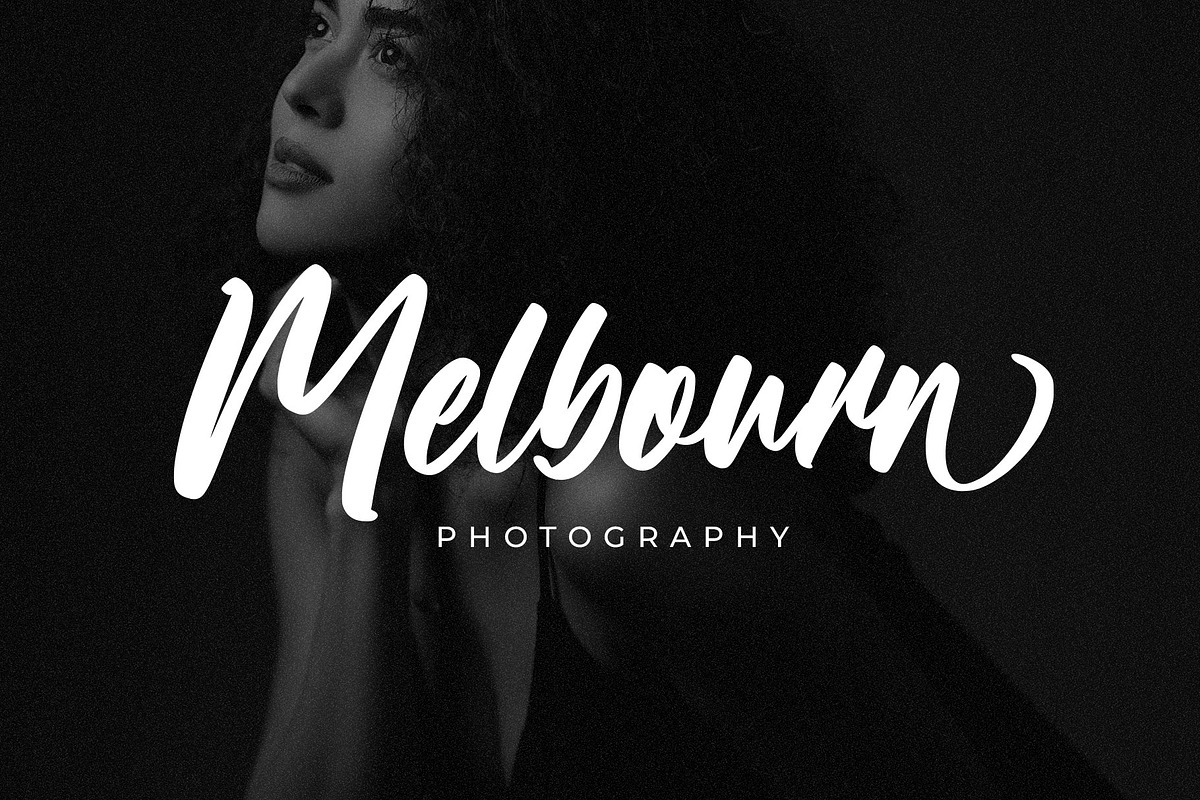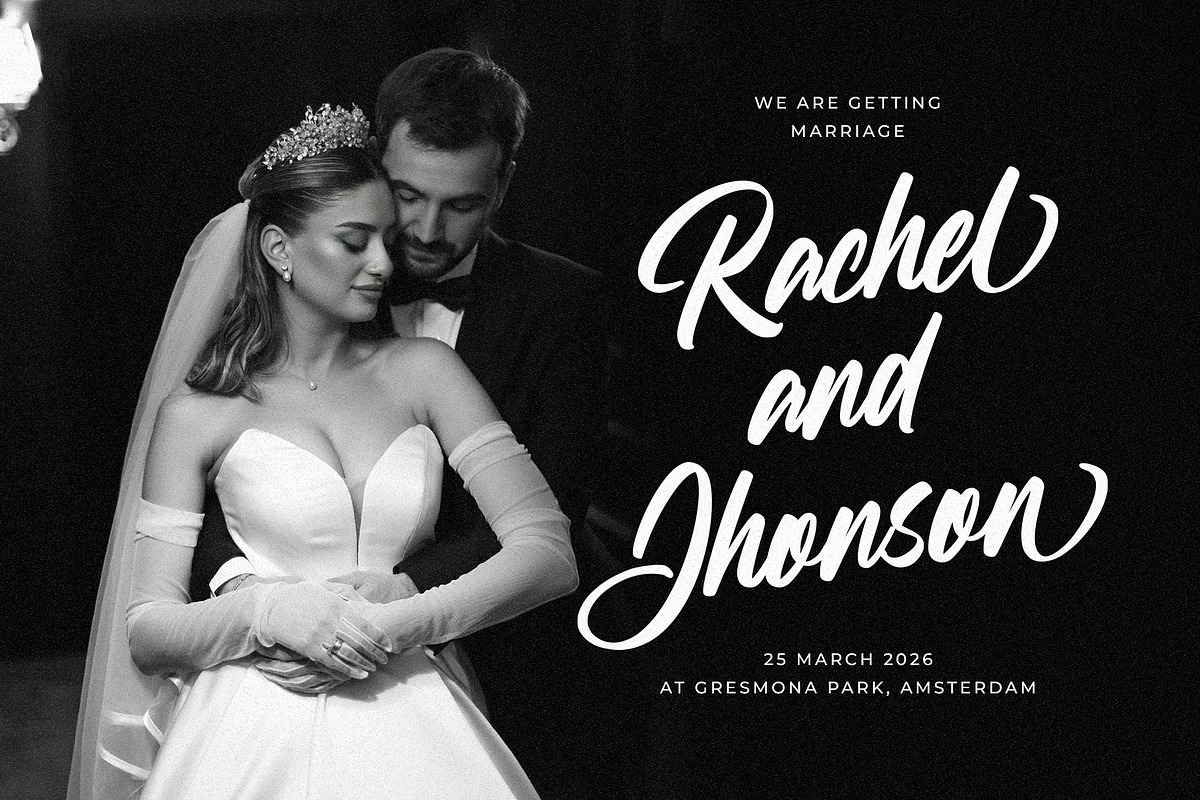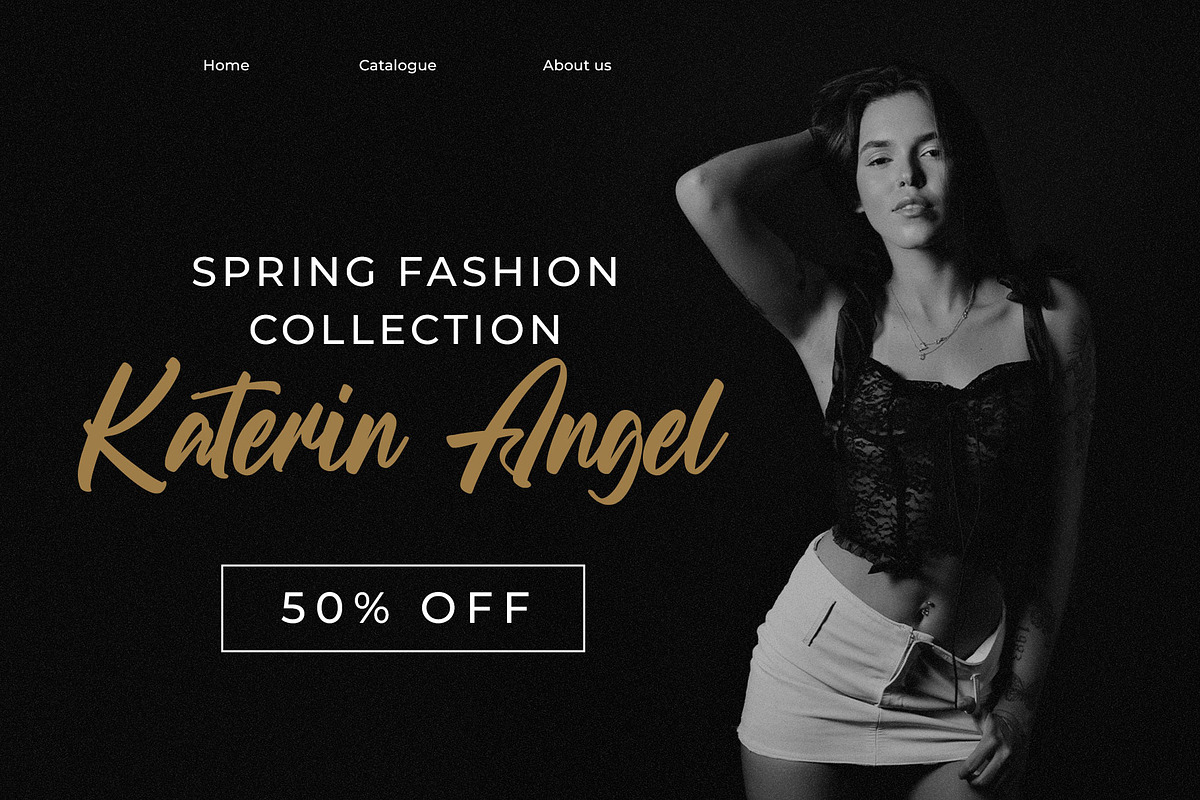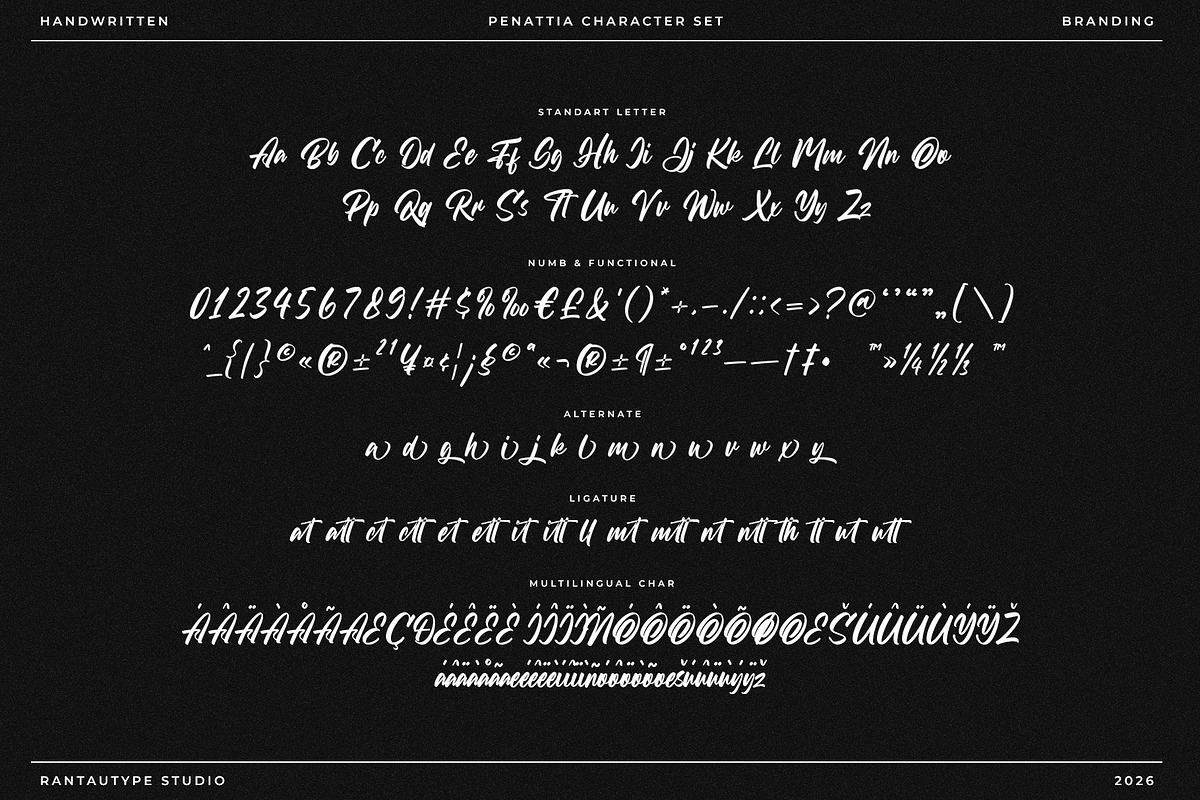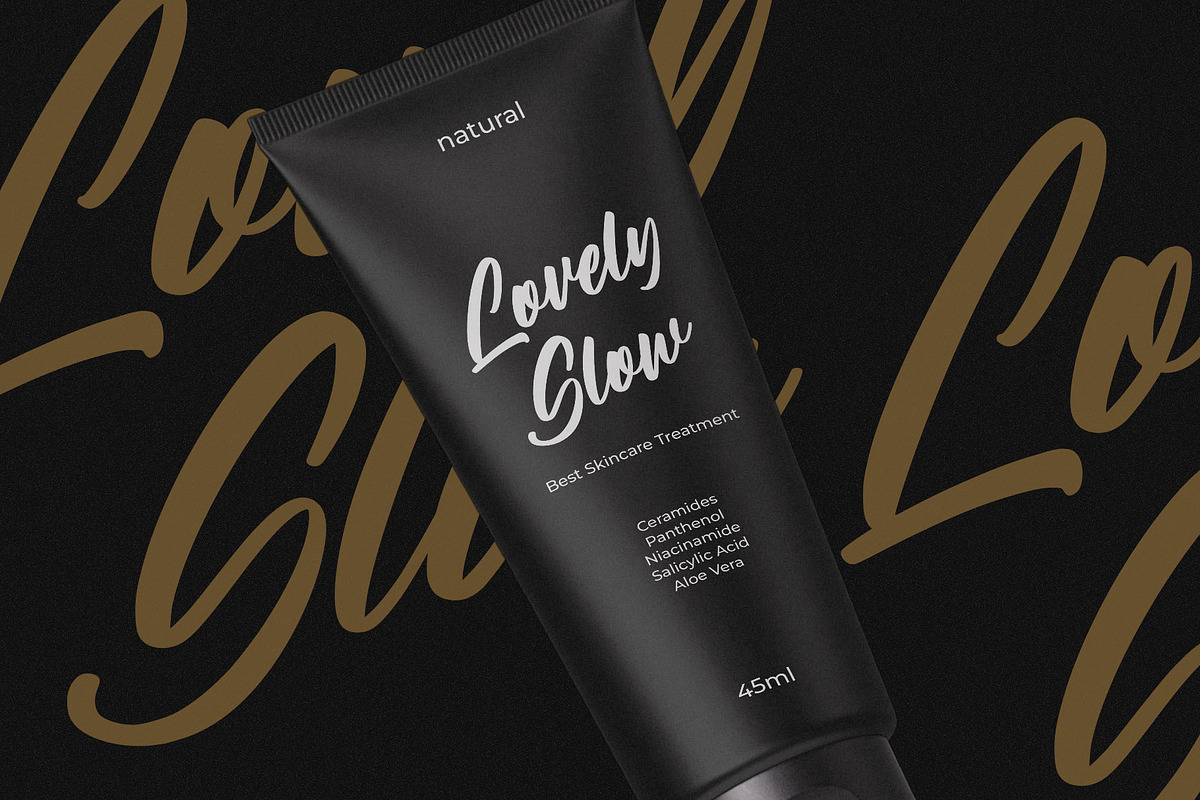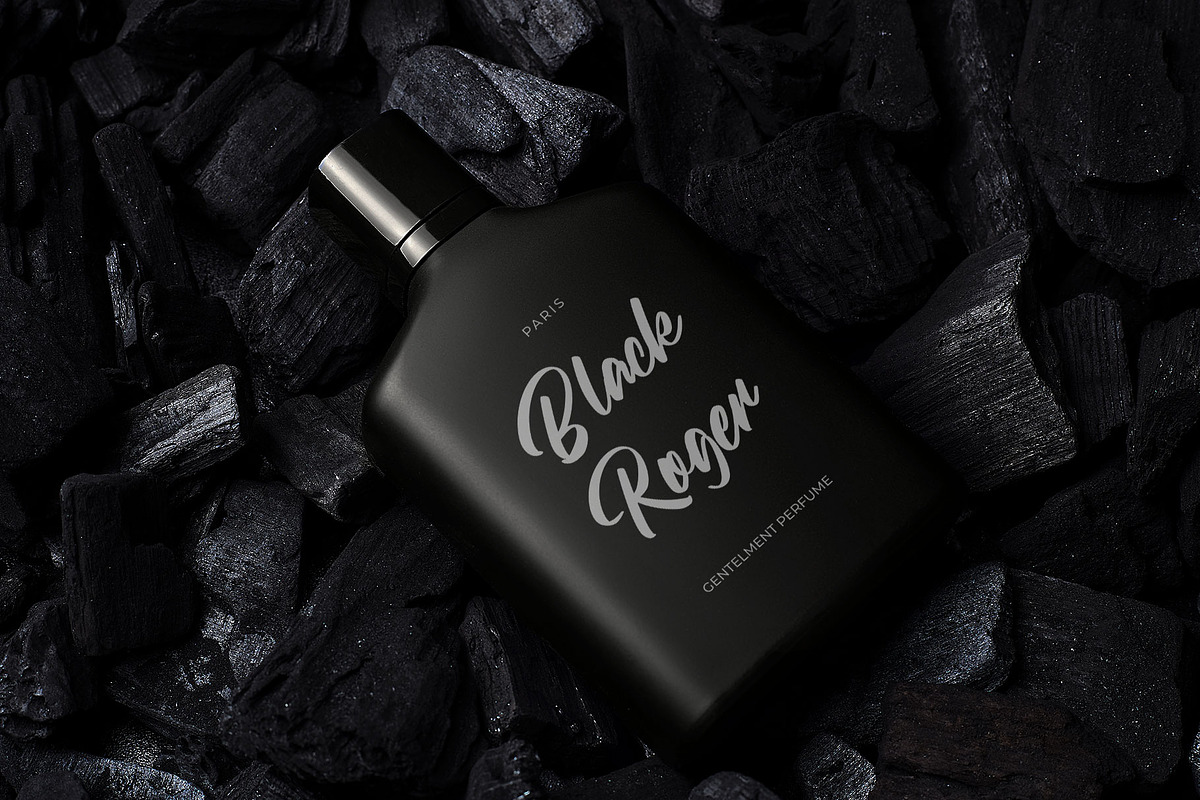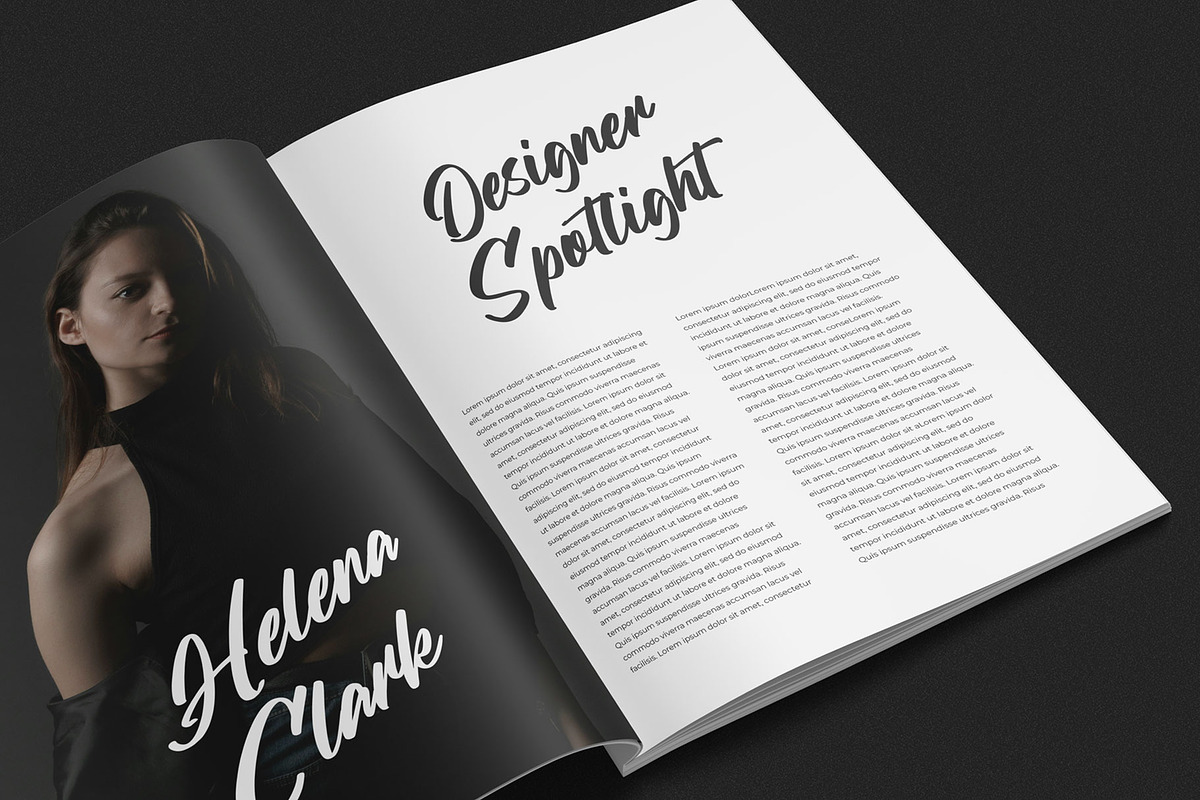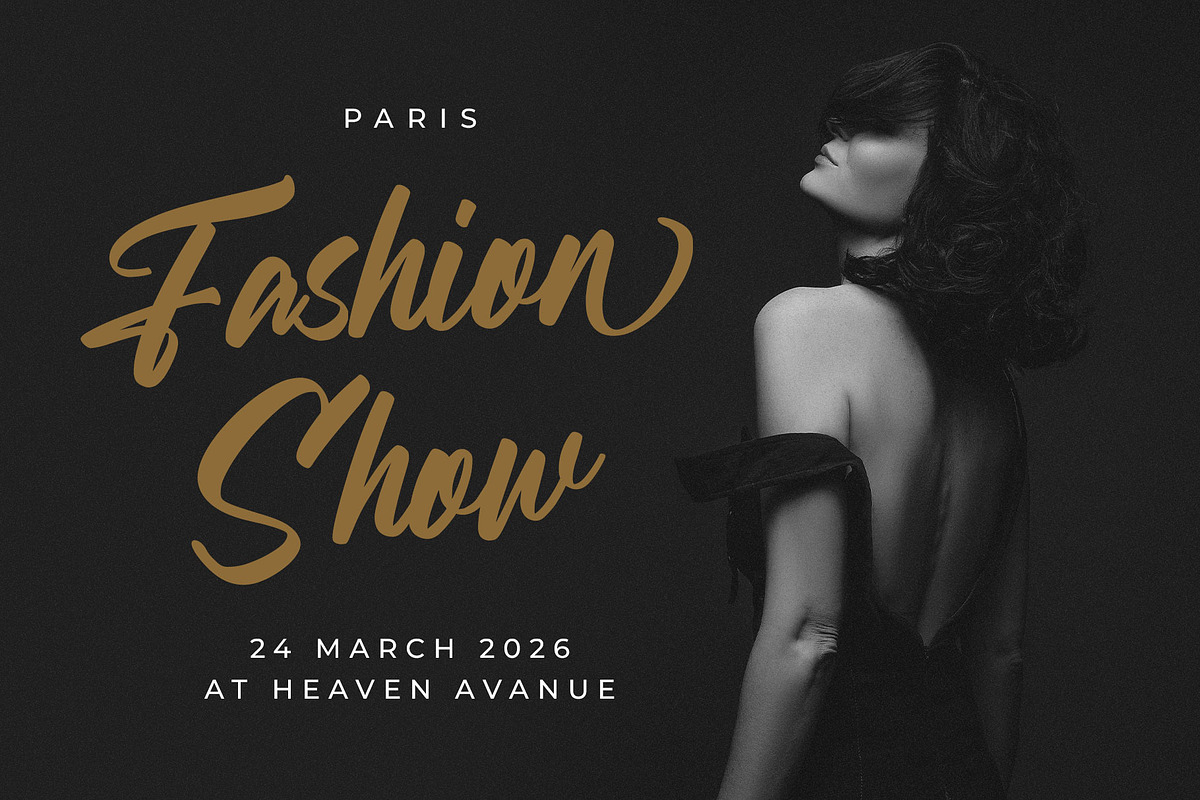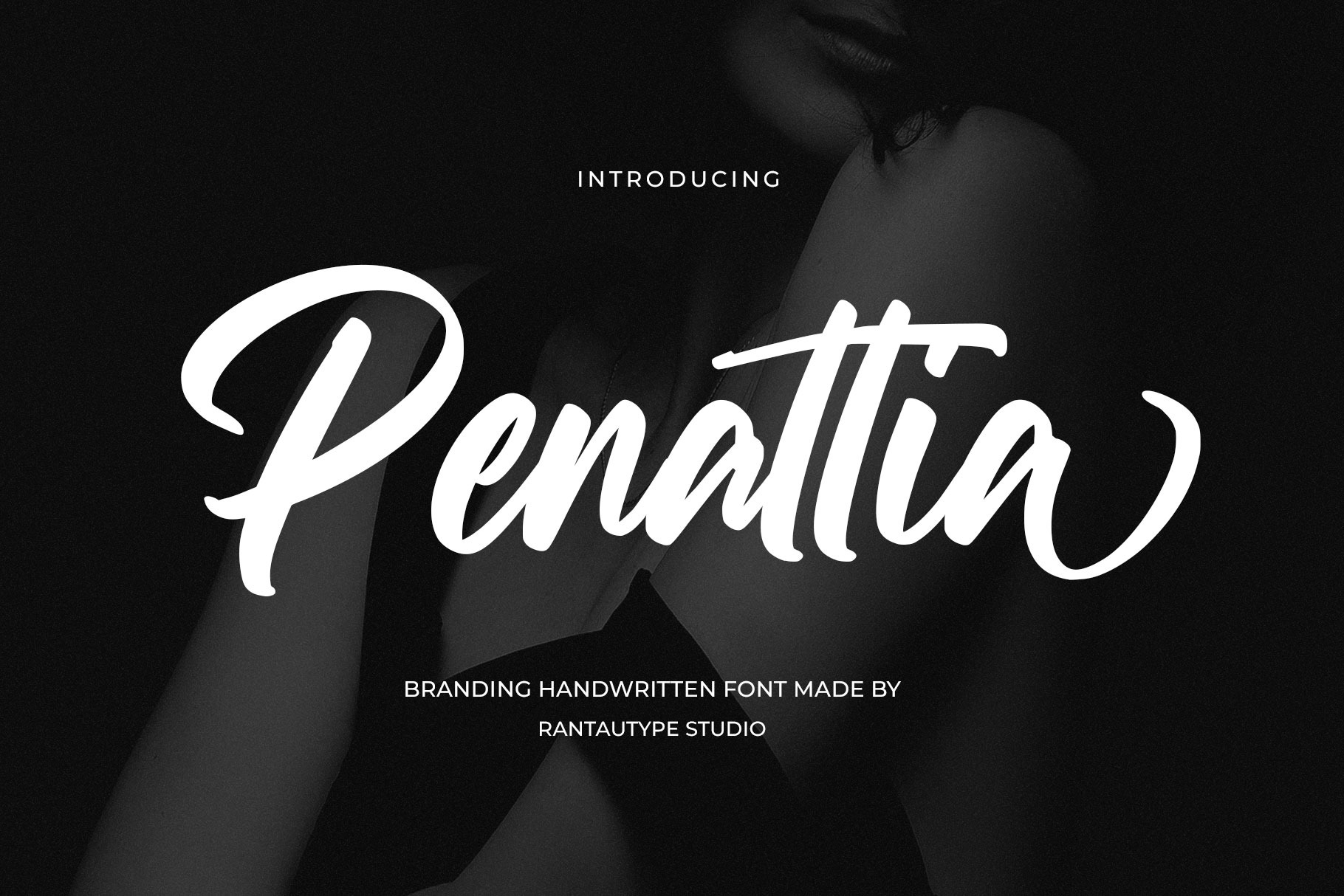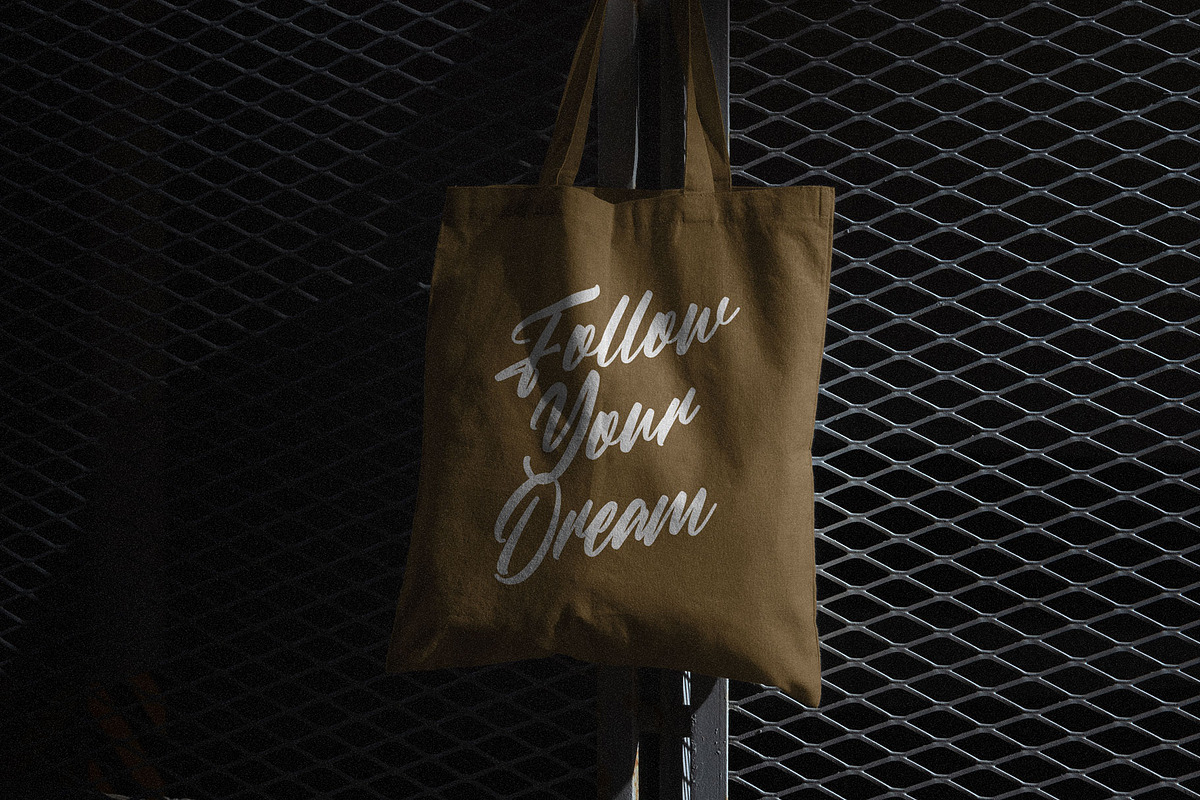
Penattia Branding Handwritten Font
Penattia is modern handwritten font inspire by style and modern era. Penattia come with natural strokes with sense of authenticity and expressive emotion. Pettalia is a perfectly choice for any creative endeavor, creating, modern, lifestyle design such as logotype, title, cover, branding, invitations, wedding designs, display and magazine, social media posts, advertisements, printed quotes, product packaging, corporate brand, product designs, labels, photography, watermarks, special events and any other project with modern touch.
- Alternate and ligature